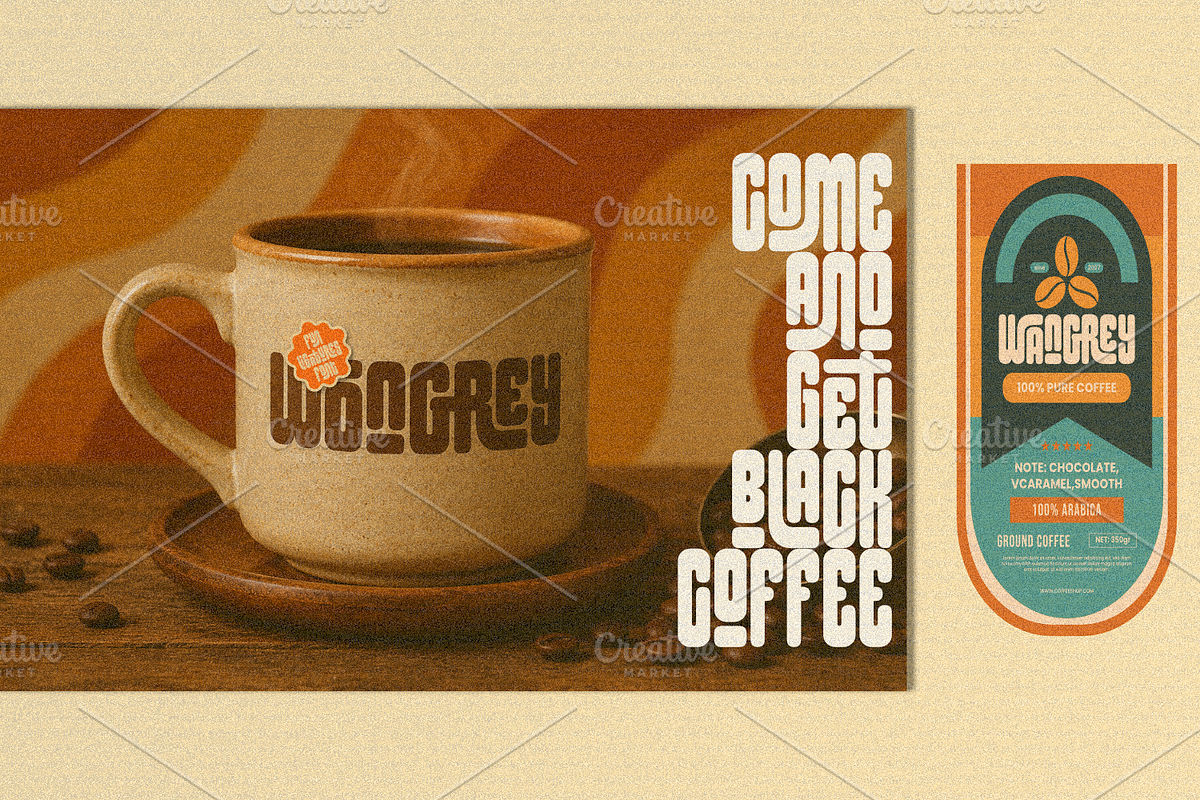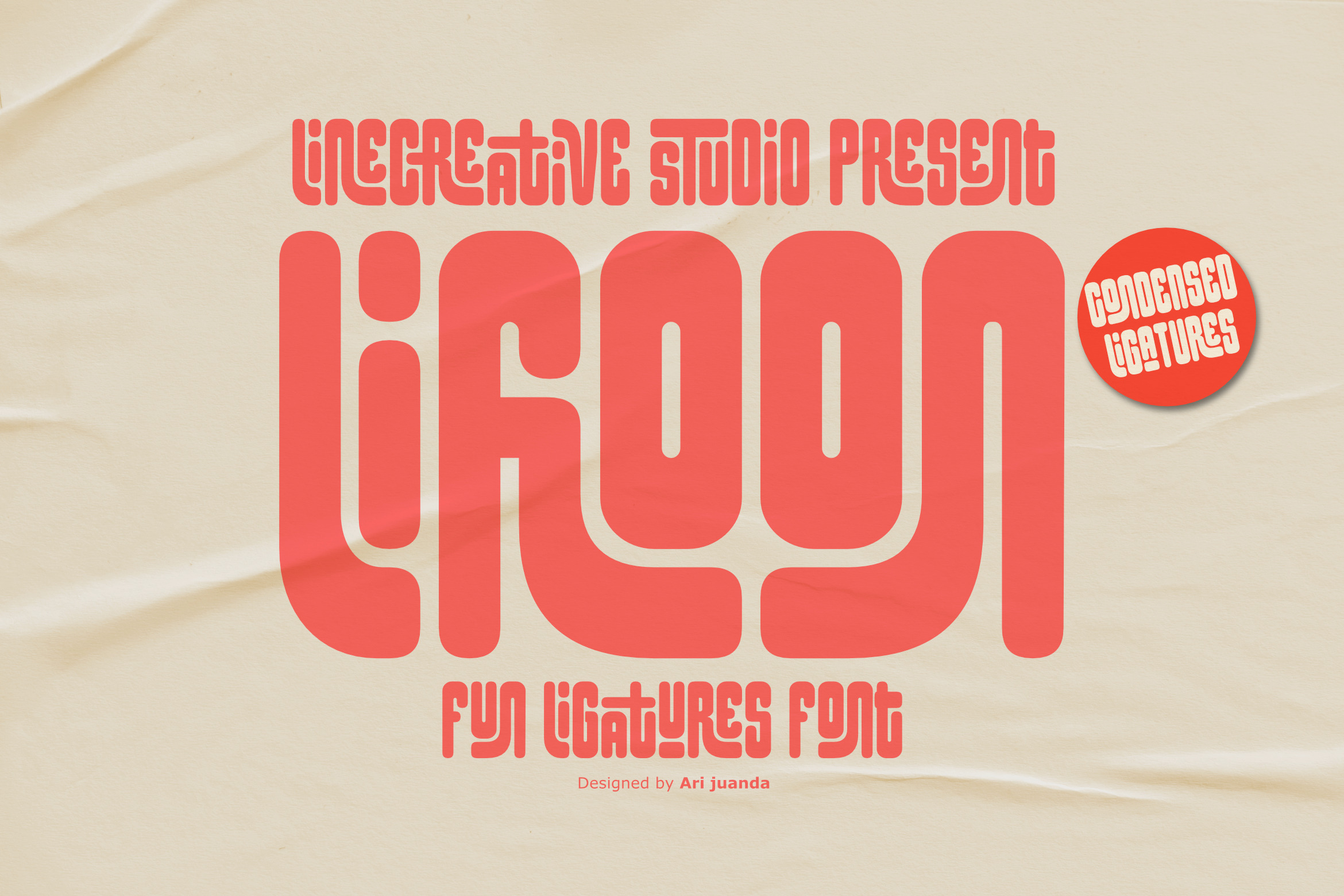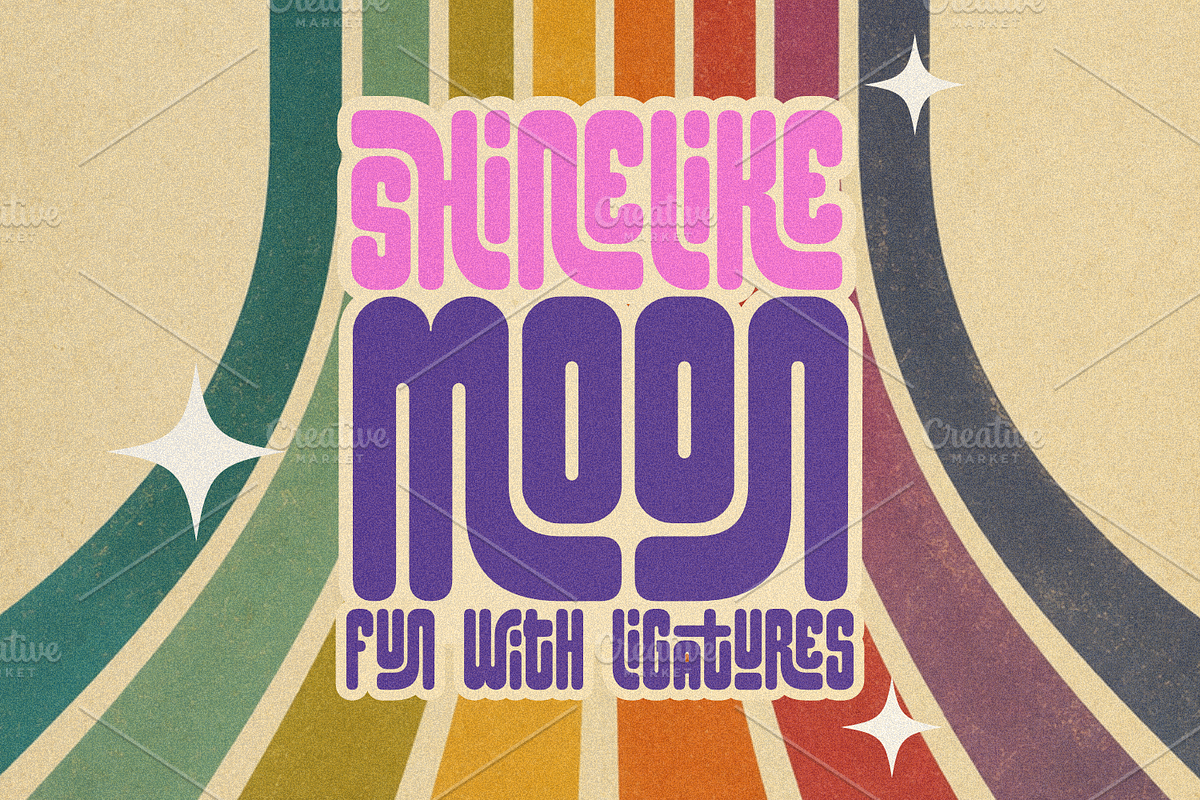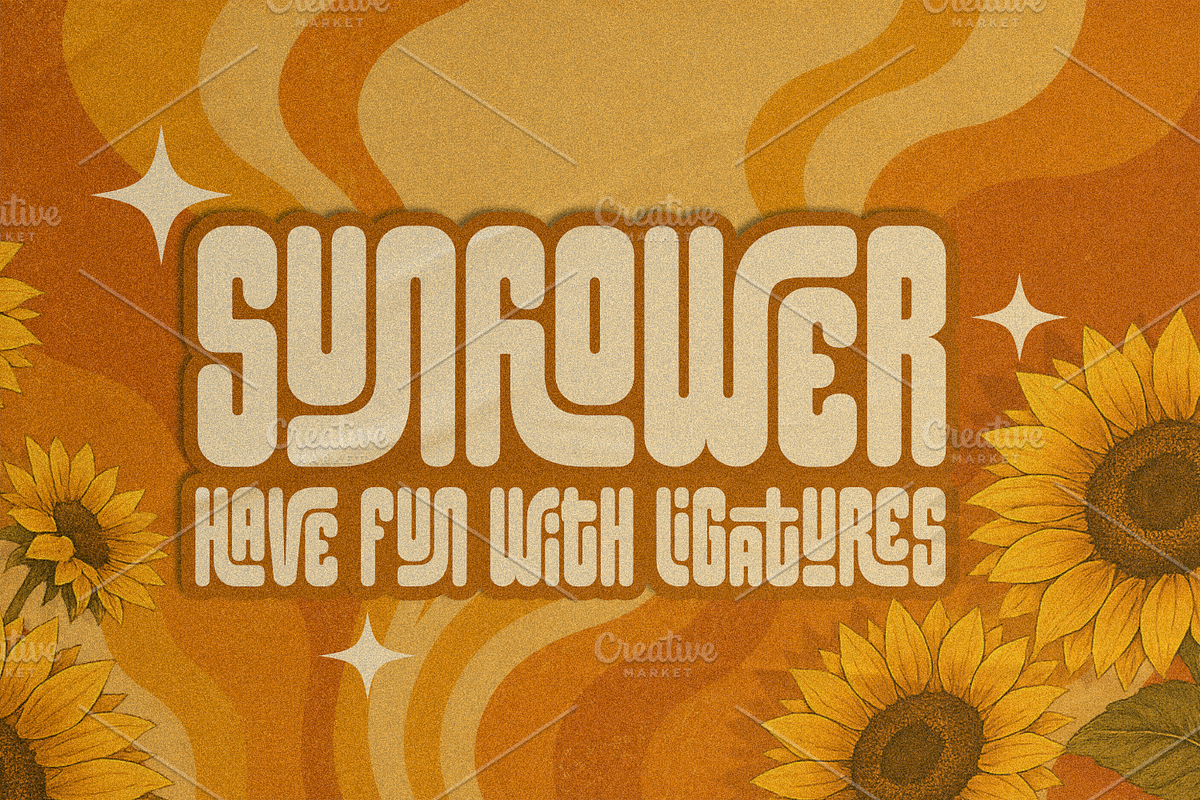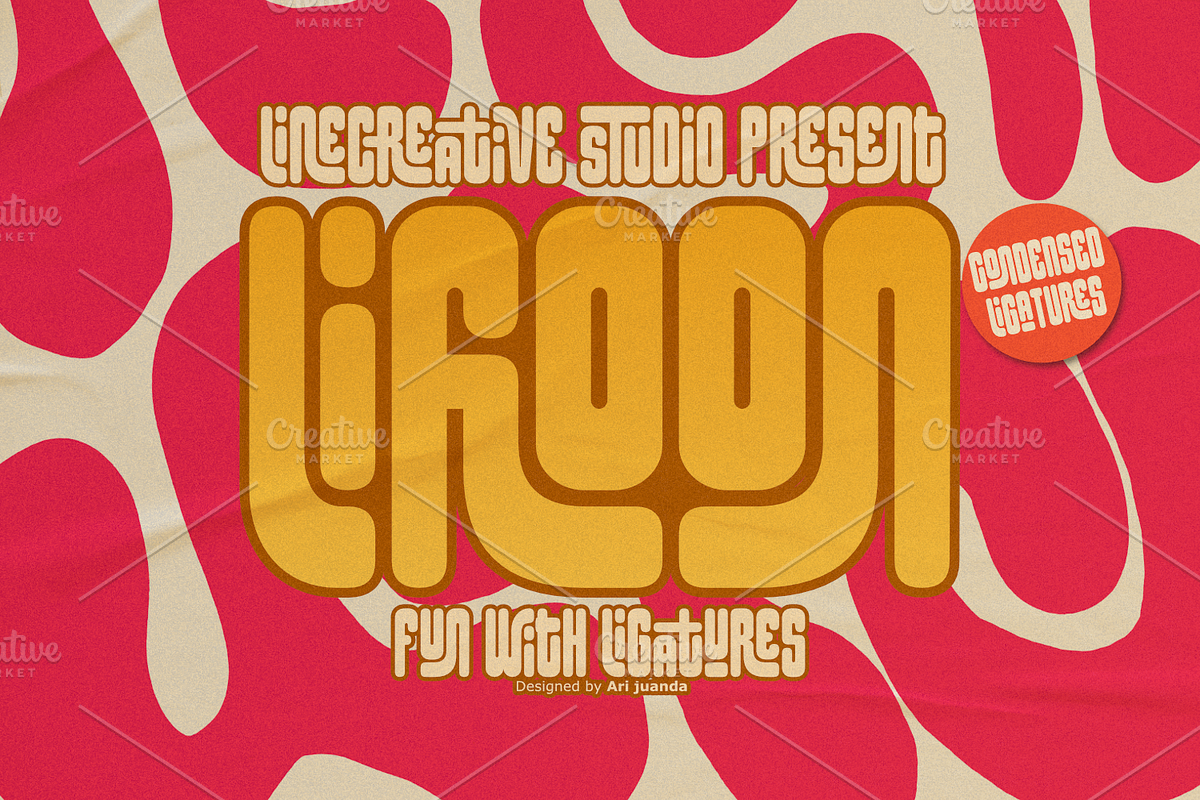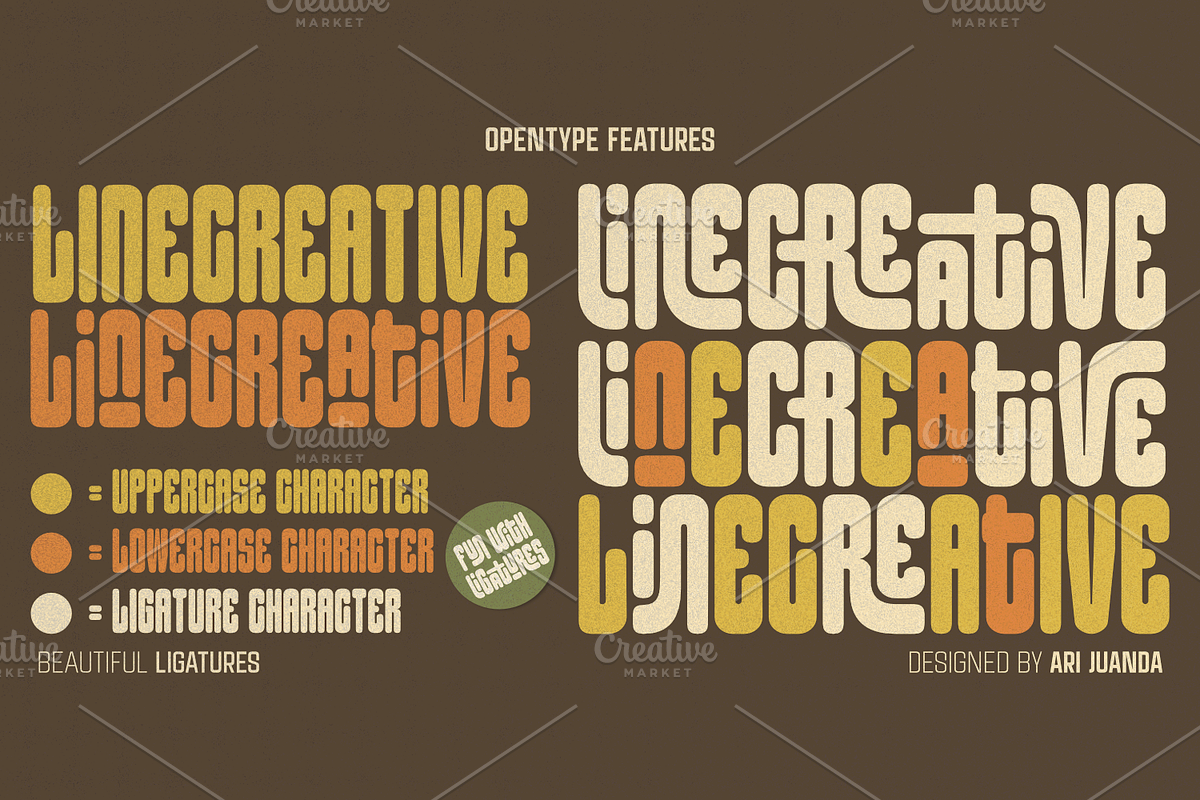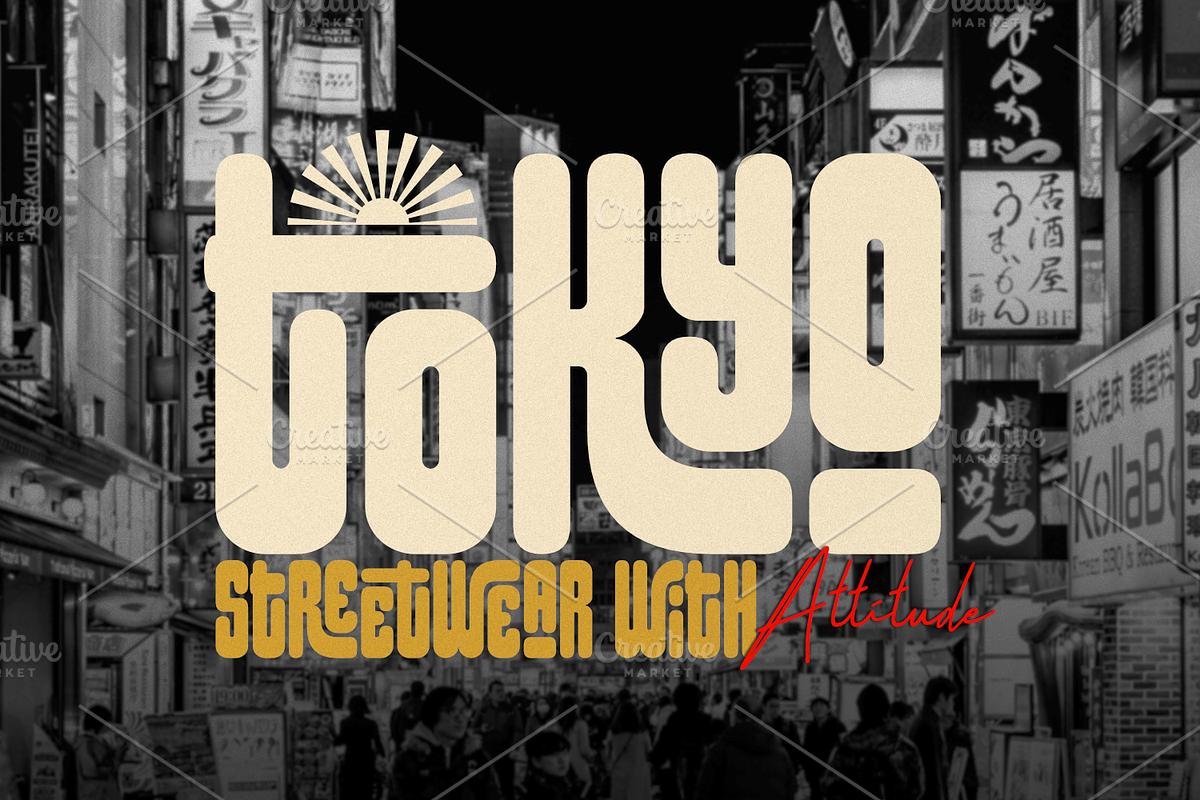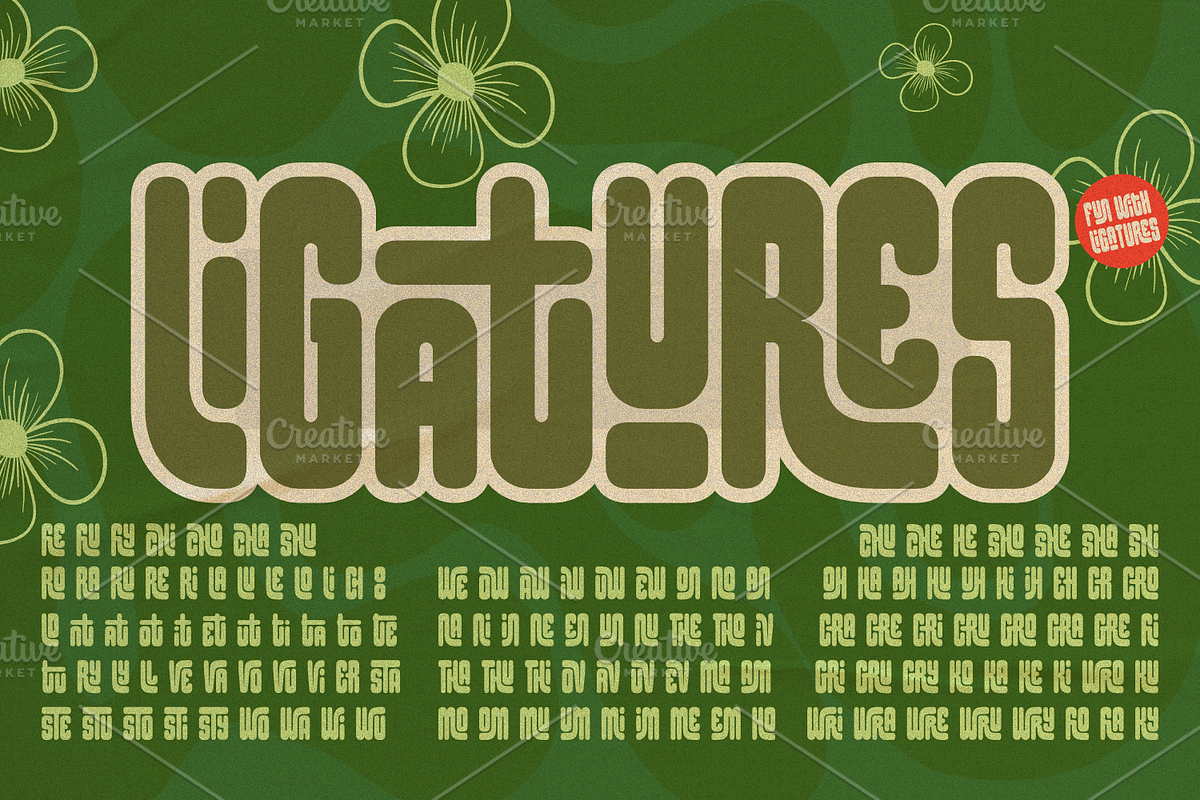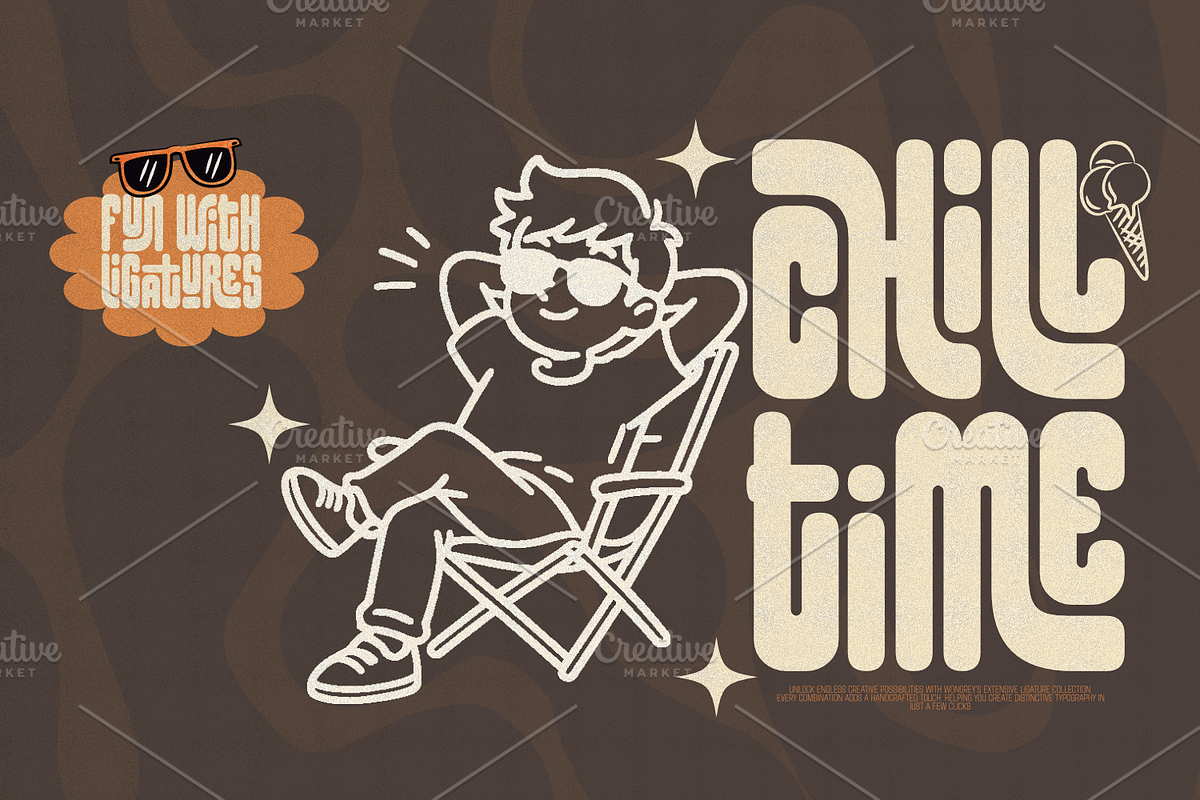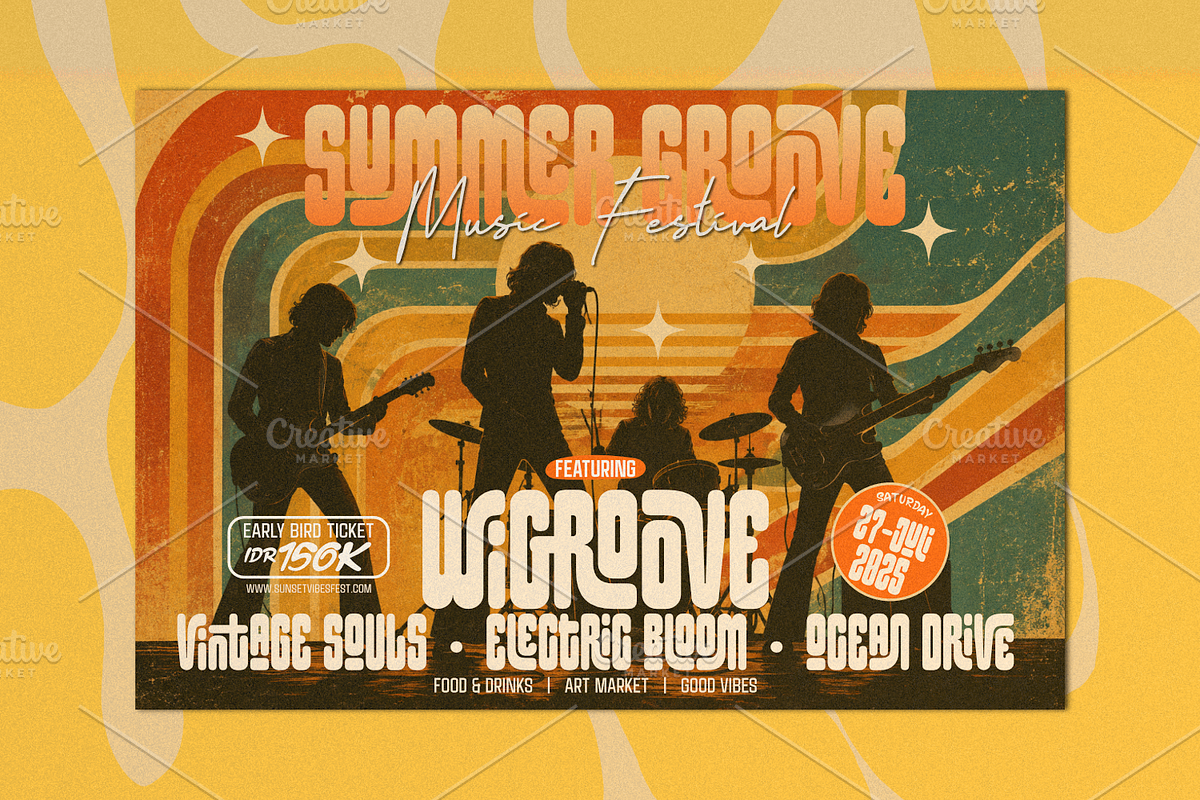
Lifloon-Fun Ligatures Font
Lifloonis a bold retro display font inspired by the timeless charm of vintage signage, classic packaging, and the vibrant typography of the 70s. Designed to make every headline stand out, Lifloon combines nostalgic character with a clean, modern finish—making it perfect for designers who want to create work that's both memorable and full of personality.
What makes Lifloon truly special is its collection of beautiful handcrafted ligatures. Every connection between selected letter pairs is carefully designed to create a smoother, more natural flow, giving your typography a custom lettering feel in just a few clicks. Simply enable OpenType Ligatures, and watch ordinary words transform into eye-catching designs.
Whether you're creating branding, logos, packaging, café menus, posters, apparel, social media graphics, or retro-inspired merchandise, Lifloon delivers a warm vintage atmosphere while maintaining excellent readability.
Bold Vintage Display Font
Beautiful OpenType Ligatures
Uppercase & Lowercase Characters
Easy to Use
Perfect for Logos, Branding, Posters, Packaging, Apparel, Labels, Stickers, and Social Media
Why You'll Love Lifloon
Lifloon isn't just another retro font—it's a typeface crafted to bring character and emotion into every design. The carefully designed ligatures add subtle yet impactful details that make your typography feel more authentic, handcrafted, and distinctive. Instead of looking generic, your words gain a unique rhythm that naturally captures attention.
If you're looking for a font that combines retro charm, modern usability, and expressive ligatures, Lifloon is the perfect addition to your font collection.
Turn ordinary words into unforgettable vintage typography with Lifloon